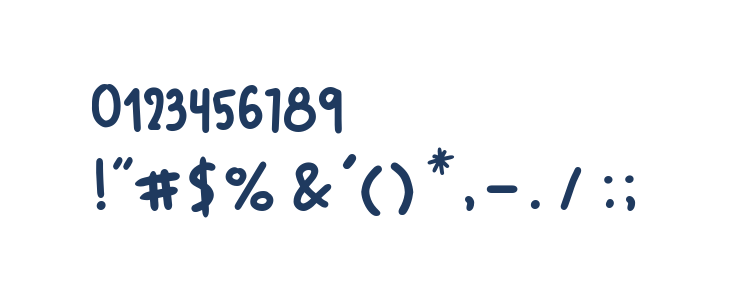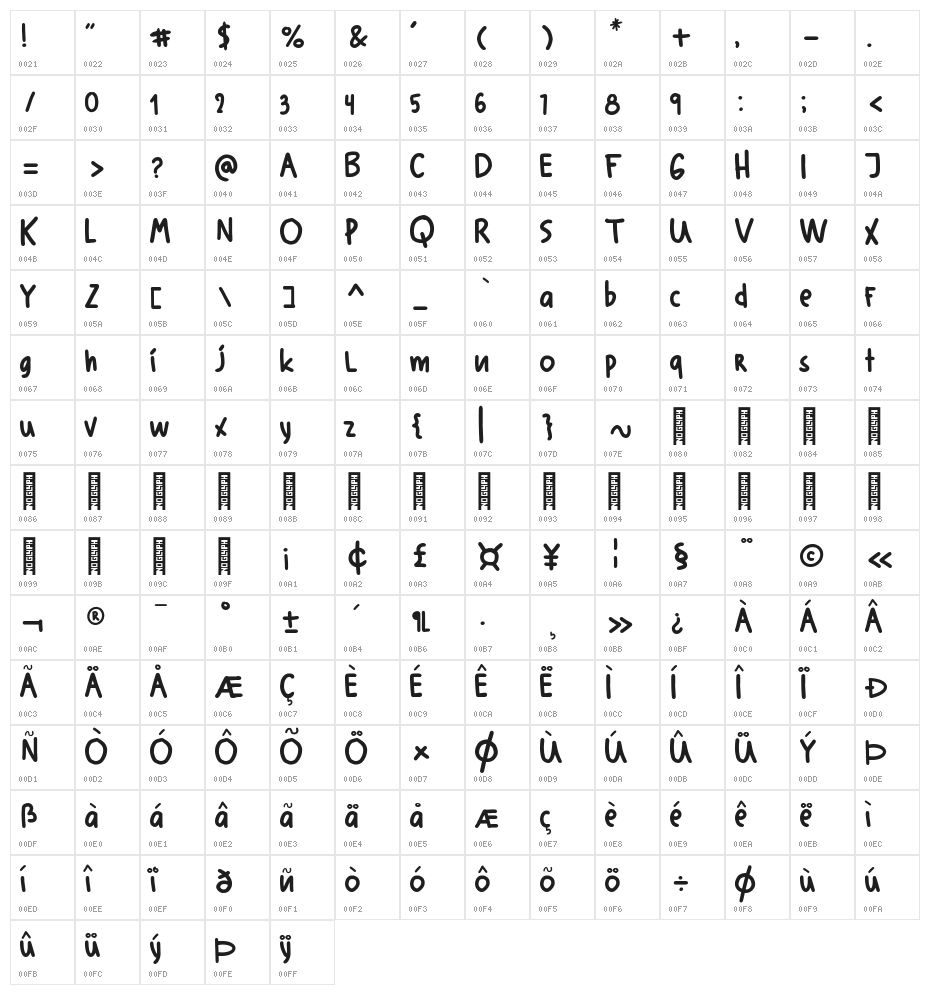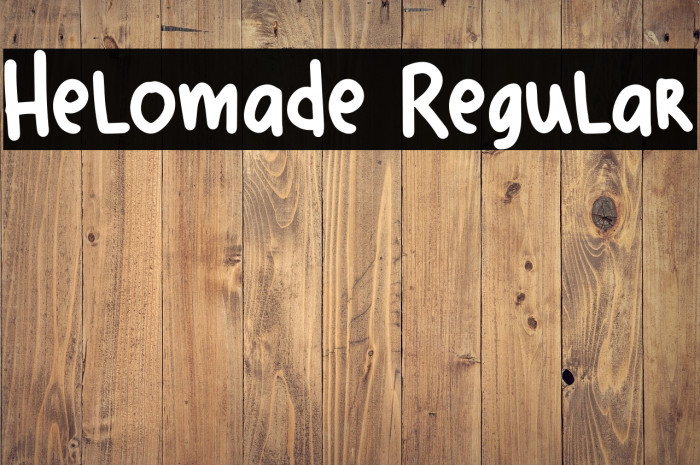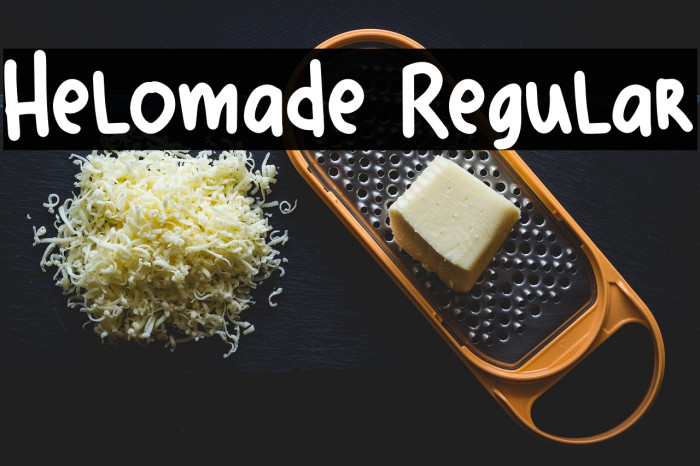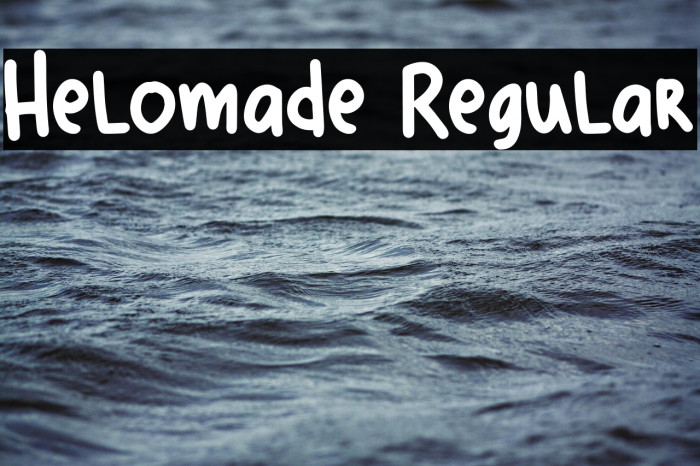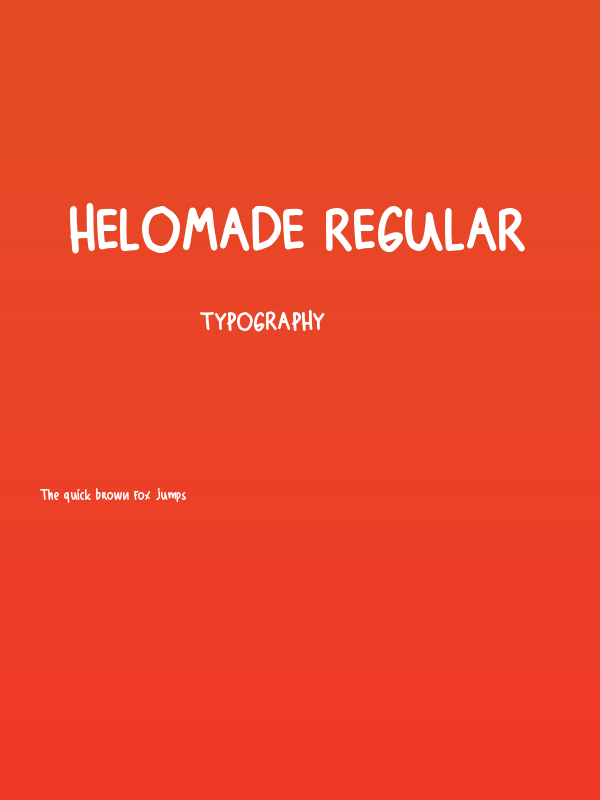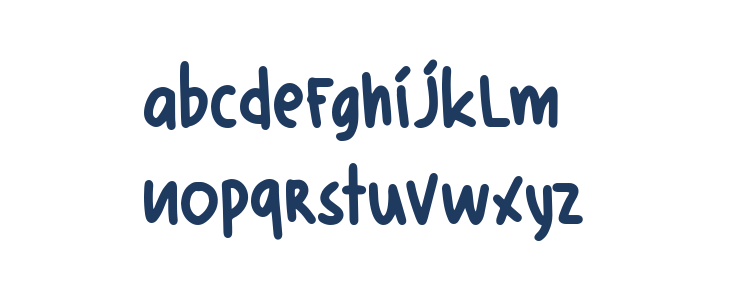
Helomade Regular Font
Helomade Regular Description
This playful and informal font features a handwritten style with a casual and friendly appearance. The characters are slightly irregular, adding a personal touch that mimics natural handwriting. The strokes are rounded and smooth, giving it a soft and approachable feel. This font is versatile, suitable for projects that require a warm and inviting tone. The letters are well-spaced, ensuring readability while maintaining a whimsical charm. It includes a full set of uppercase and lowercase letters, numbers, and a variety of special characters, making it functional for diverse applications.
| Use Case | Greeting cards, Children's books, Casual branding |
| Proposed Projects | Ideal for greeting cards, children's books, casual branding, and social media graphics. |